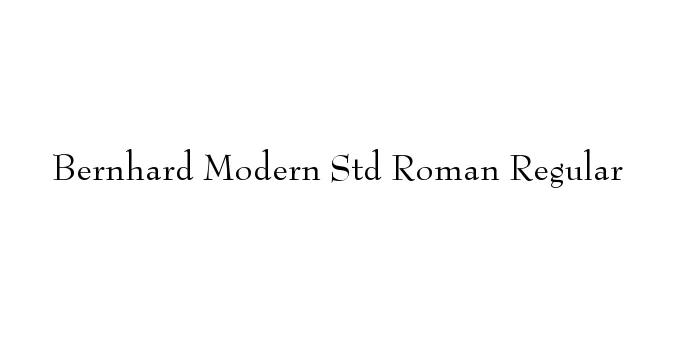
Bernhard Modern Std Roman Regular
Designed by Lucian Bernhard
Bernhard Modern was designed by the renowned graphic designer Lucian Bernhard in 1937 for the American Type Founders (ATF). This typeface is a standout in the serif category, distinguished by its exceptionally tall ascenders and a diminutive x-height, which lends it a unique, elongated elegance. It was created as a more delicate and refined alternative to the heavier, more traditional serif faces of the early 20th century.
The Roman Regular weight is particularly celebrated for its sophisticated and antique charm. Its high-contrast strokes and graceful serifs make it an ideal choice for high-end editorial work, luxury branding, and formal invitations. Over the decades, Bernhard Modern Std has remained a favorite among typographers who seek to evoke a sense of timelessness and classical beauty in their design projects.
Bernhard Modern Std Roman Regular Best Uses
Excellent for high-end fashion logos, perfume packaging, and boutique identities.
Perfect for book titles, poetry collections, and sophisticated magazine headers.
Ideal for wedding invitations, gala announcements, and personal letterheads.
Best used in short bursts of text where its unique proportions can be showcased.